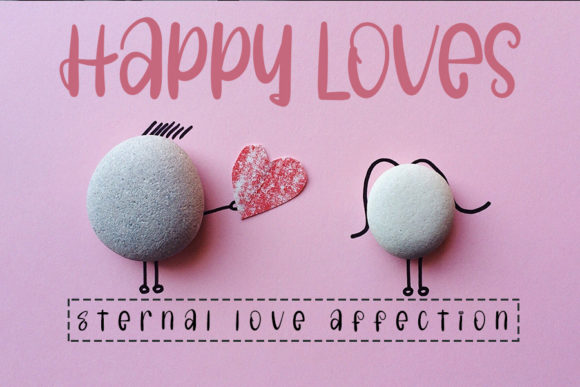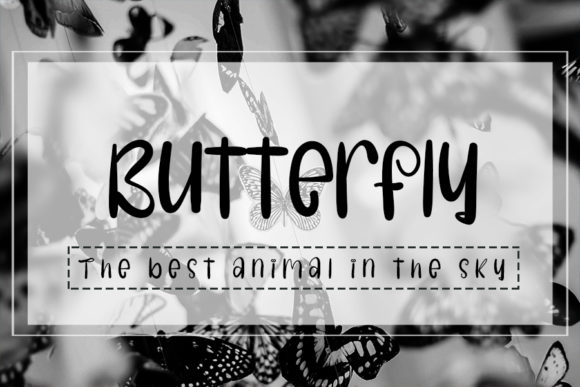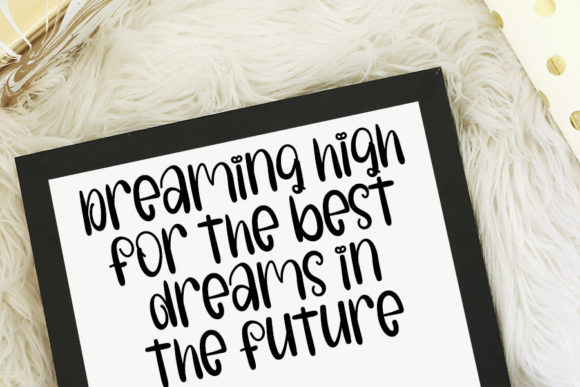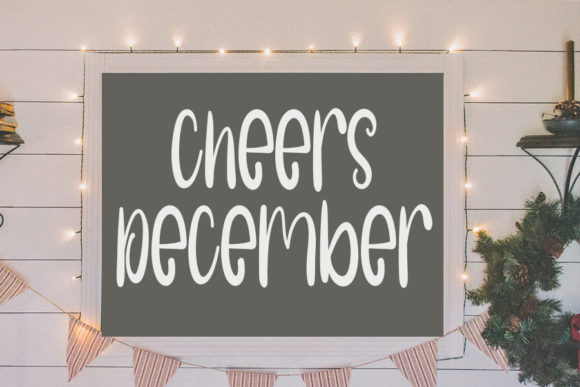
Baby Craft Font: The Sweetest Handwritten Font for Creative Projects
Baby Craft Font is a delightful handwritten font that has captured the hearts of designers and crafters alike. Its playful and charming nature makes it an ideal choice for a wide range of creative projects, from inspirational wall posters to branding and marketing materials. In this article, we’ll dive into the world of Baby Craft Font and explore its features, uses, and benefits.
What is Baby Craft Font?
Baby Craft Font is a sweet and elegant handwritten font that exudes a sense of playfulness and innocence. Its gentle curves and soft lines make it perfect for designs that require a touch of whimsy and charm. The font is designed to be highly legible, making it suitable for use in a variety of contexts, from digital displays to print materials.
Features of Baby Craft Font
Baby Craft Font boasts a range of features that make it a versatile and desirable font for designers and crafters. Some of its key features include:
- Playful and handwritten style: Baby Craft Font has a distinctly handwritten feel, with a playful and carefree style that’s perfect for creative projects.
- High legibility: The font is designed to be highly legible, making it easy to read in a variety of contexts.
- Versatile: Baby Craft Font can be used in a wide range of creative projects, from inspirational wall posters to branding and marketing materials.
- Elegant and refined: Despite its playful nature, Baby Craft Font has an elegant and refined quality that makes it suitable for use in more formal designs.
Uses of Baby Craft Font
Baby Craft Font is a versatile font that can be used in a wide range of creative projects. Some of its most popular uses include:
- Inspirational wall posters: Baby Craft Font is perfect for creating inspirational wall posters that require a touch of whimsy and charm.
- Branding and marketing materials: The font can be used to create eye-catching branding and marketing materials, such as logos, business cards, and brochures.
- Digital displays: Baby Craft Font can be used in digital displays, such as social media graphics, website headers, and email newsletters.
- Print materials: The font can be used in a variety of print materials, including flyers, posters, and invitations.
Benefits of Using Baby Craft Font
There are many benefits to using Baby Craft Font in your creative projects. Some of the most significant advantages include:
- Unique and eye-catching designs: Baby Craft Font allows you to create unique and eye-catching designs that stand out from the crowd.
- Emotional connection: The font’s playful and charming nature can help to create an emotional connection with your audience.
- Flexibility: Baby Craft Font can be used in a wide range of creative projects, making it a versatile addition to your font library.
- Easy to read: The font’s high legibility makes it easy to read, even in smaller sizes.
Tips for Using Baby Craft Font
To get the most out of Baby Craft Font, here are a few tips to keep in mind:
- Use it sparingly: Baby Craft Font is a bold and eye-catching font, so use it sparingly to avoid overwhelming your design.
- Pair it with complementary fonts: Pair Baby Craft Font with complementary fonts to create a visually appealing design.
- Experiment with colors and textures: Don’t be afraid to experiment with different colors and textures to add depth and interest to your design.
Baby Craft Font is a sweet and playful handwritten font that’s perfect for creative projects. Its unique and eye-catching style makes it a great choice for designers and crafters who want to add a touch of whimsy and charm to their designs. With its high legibility, versatility, and emotional connection, Baby Craft Font is a valuable addition to any font library.